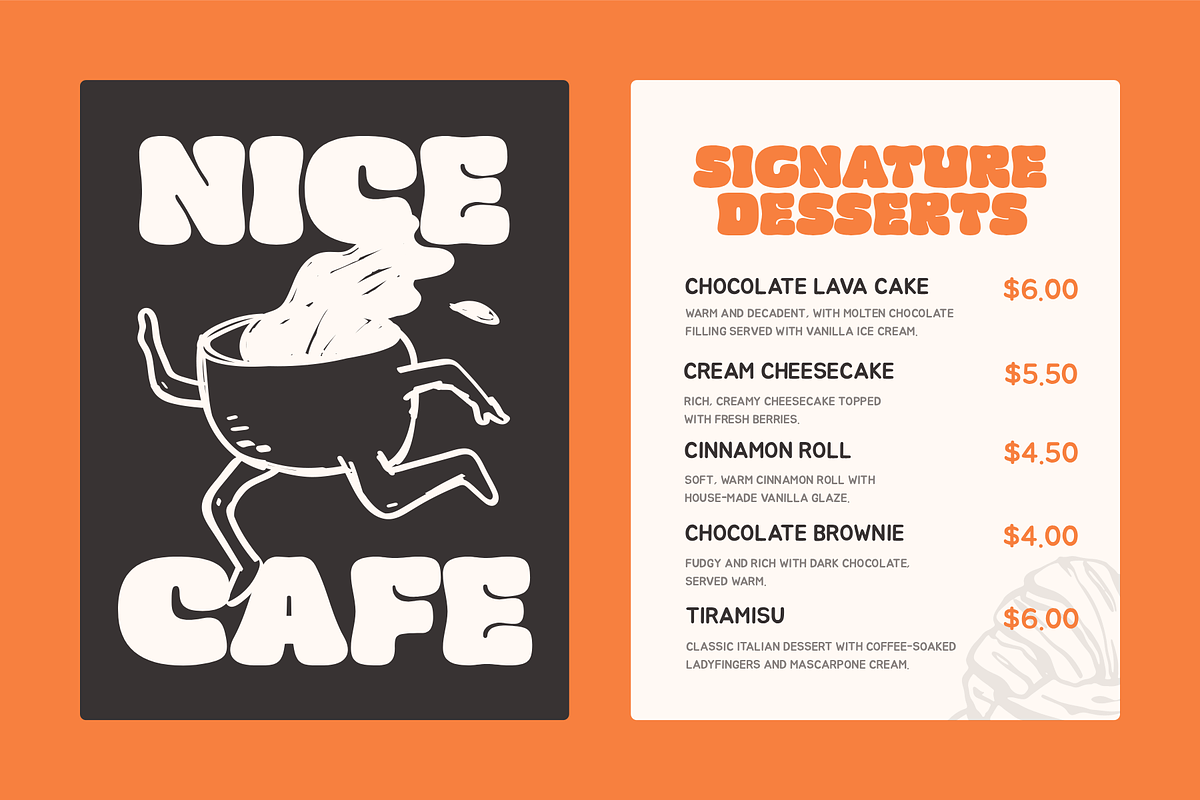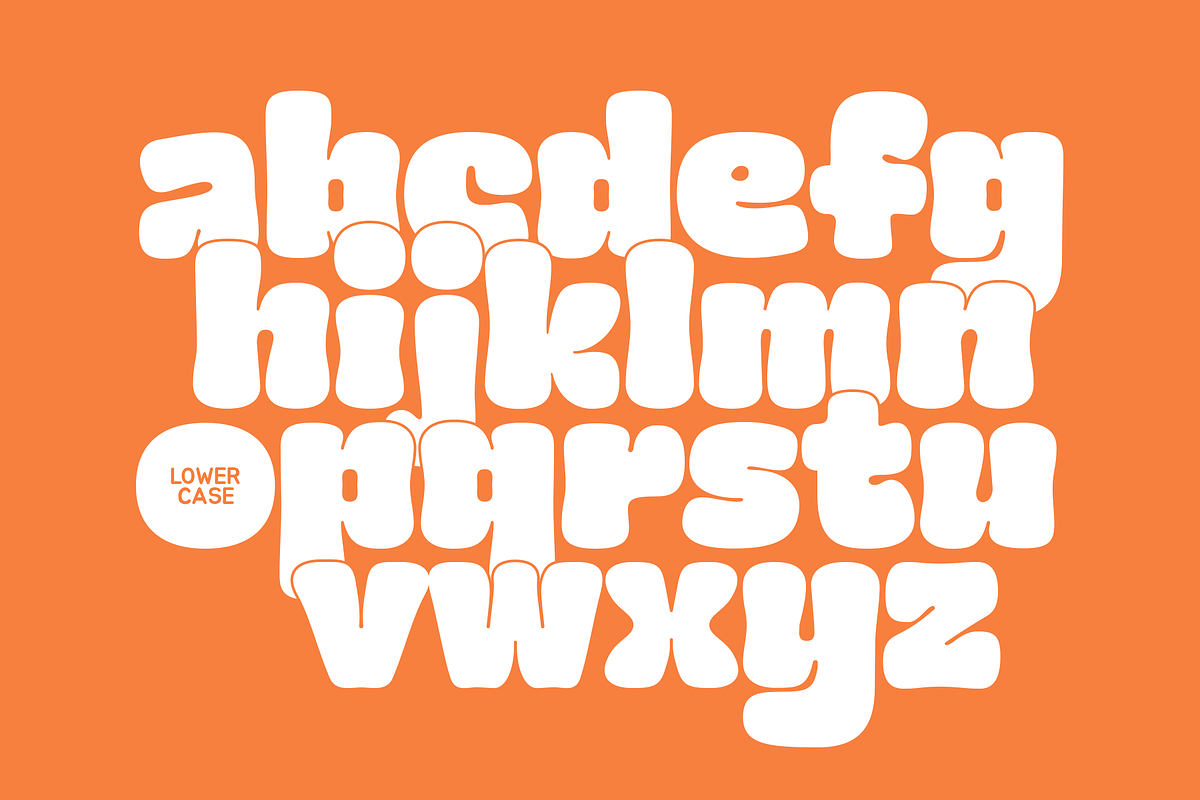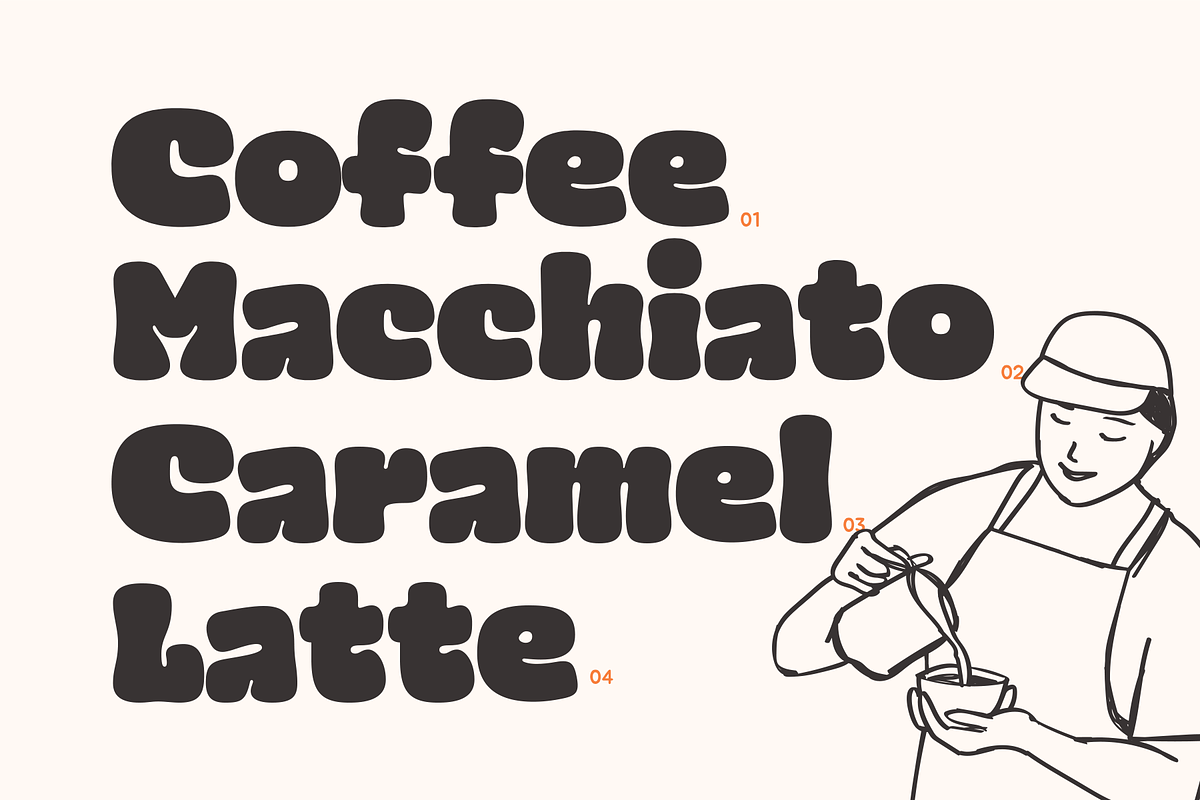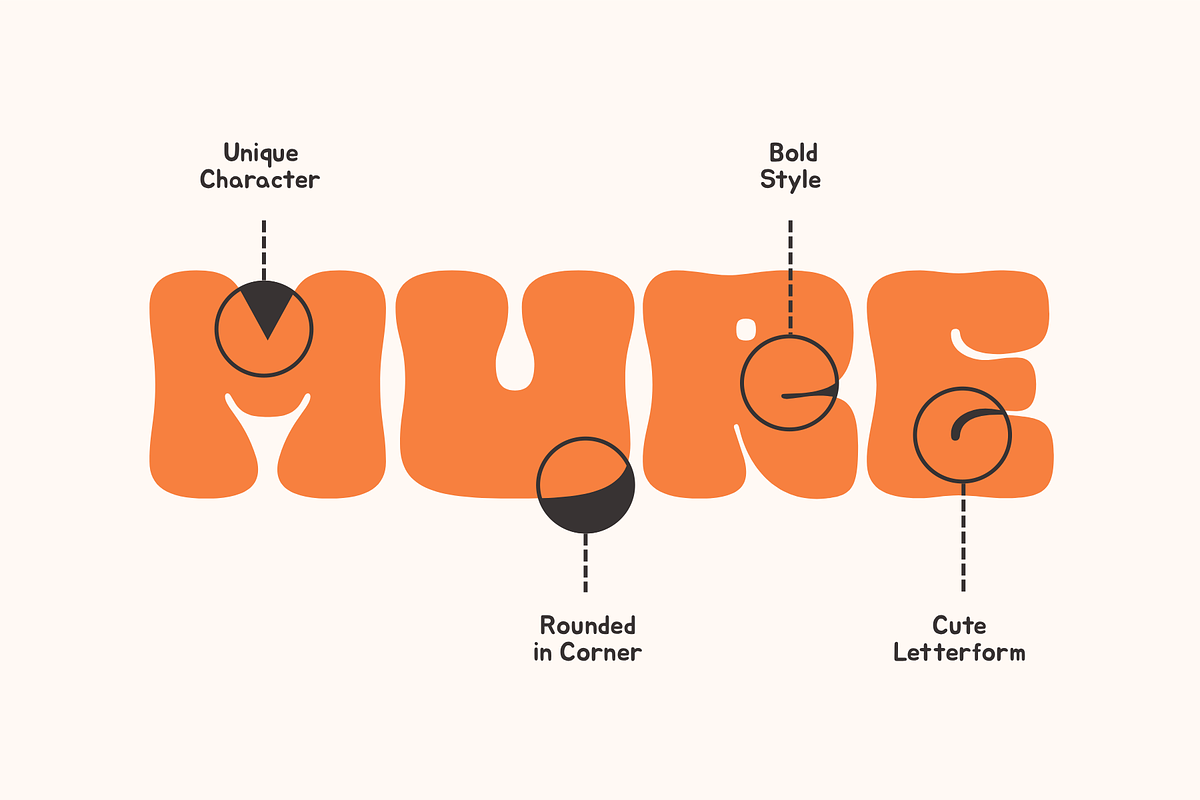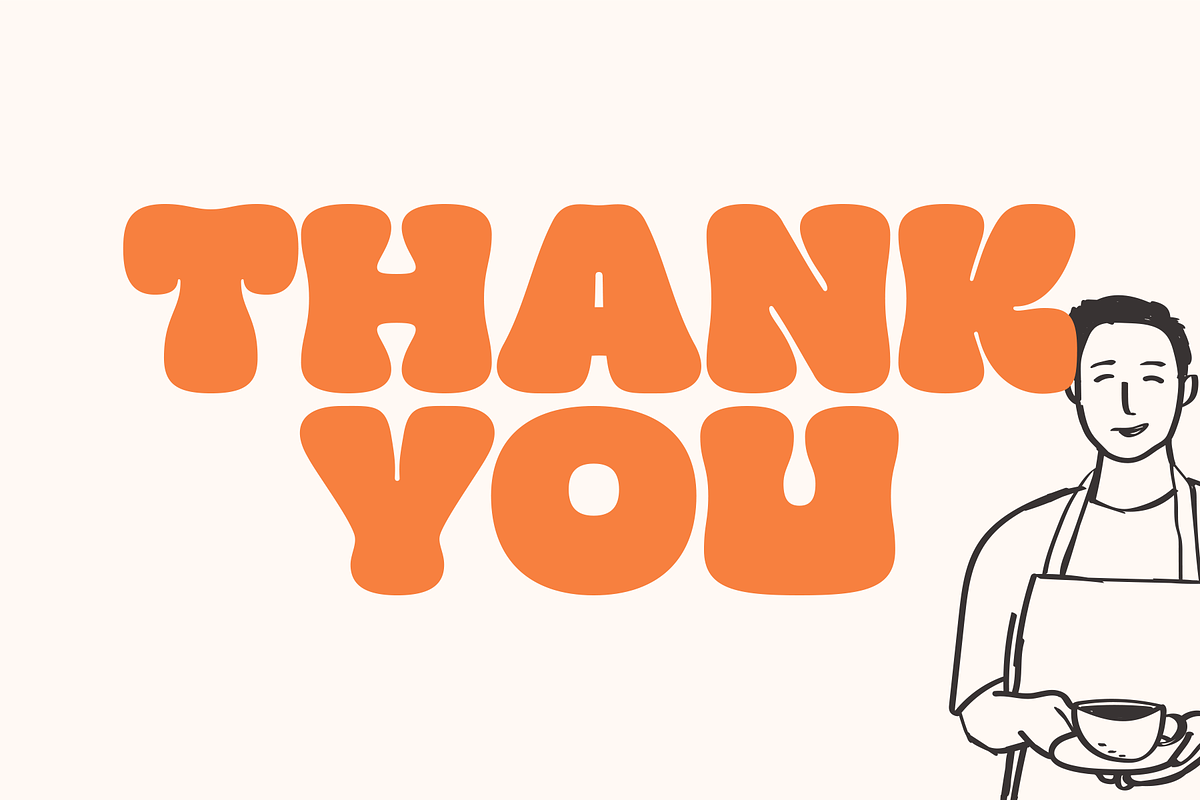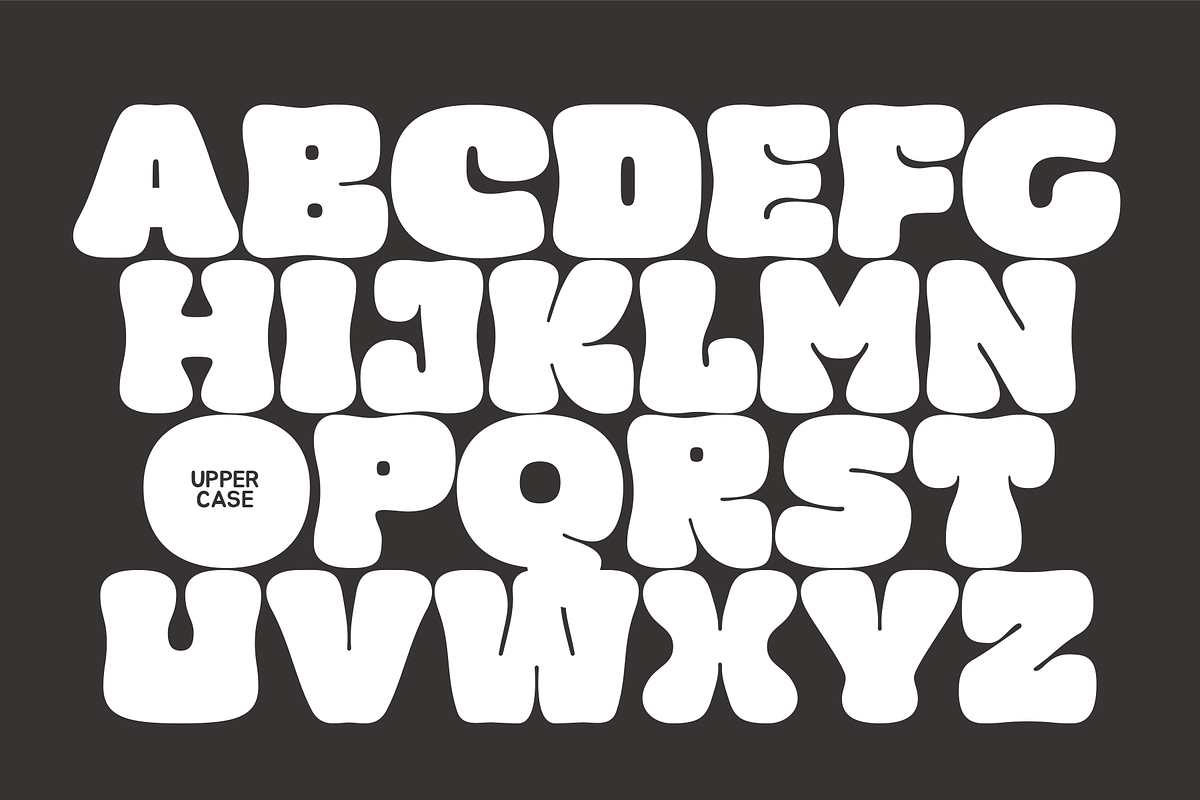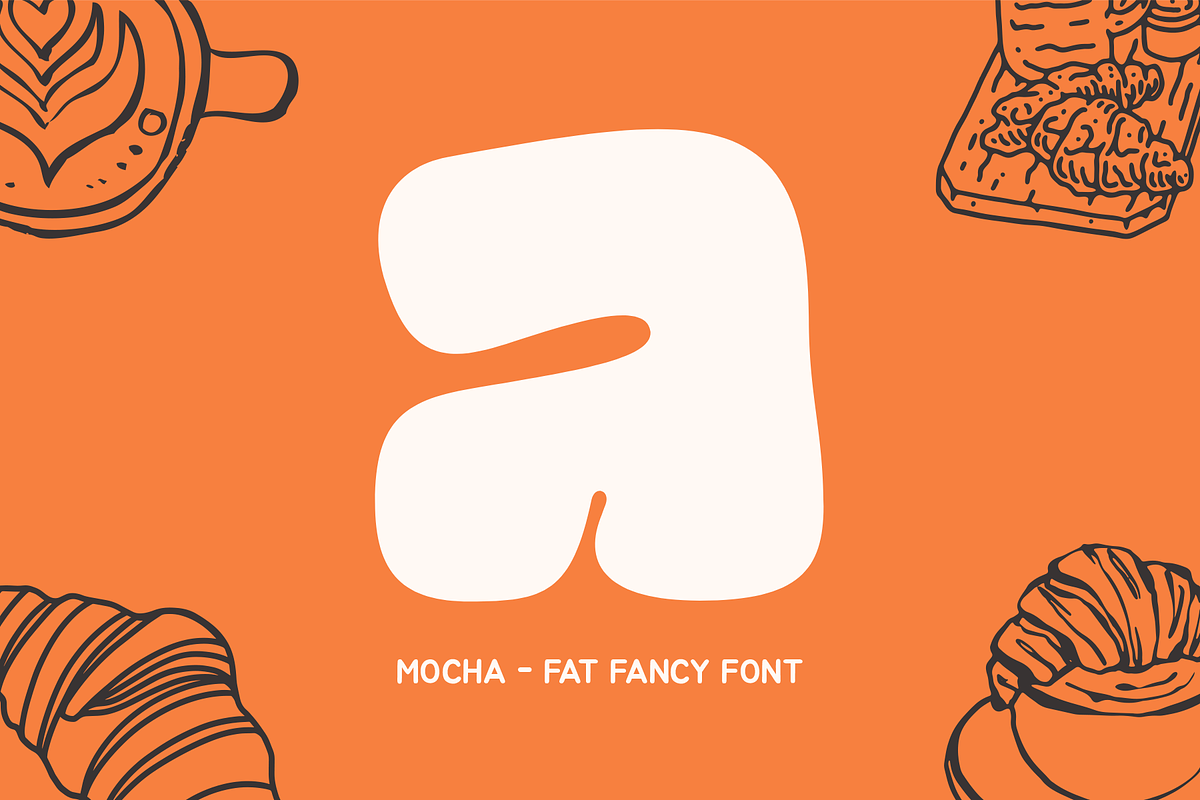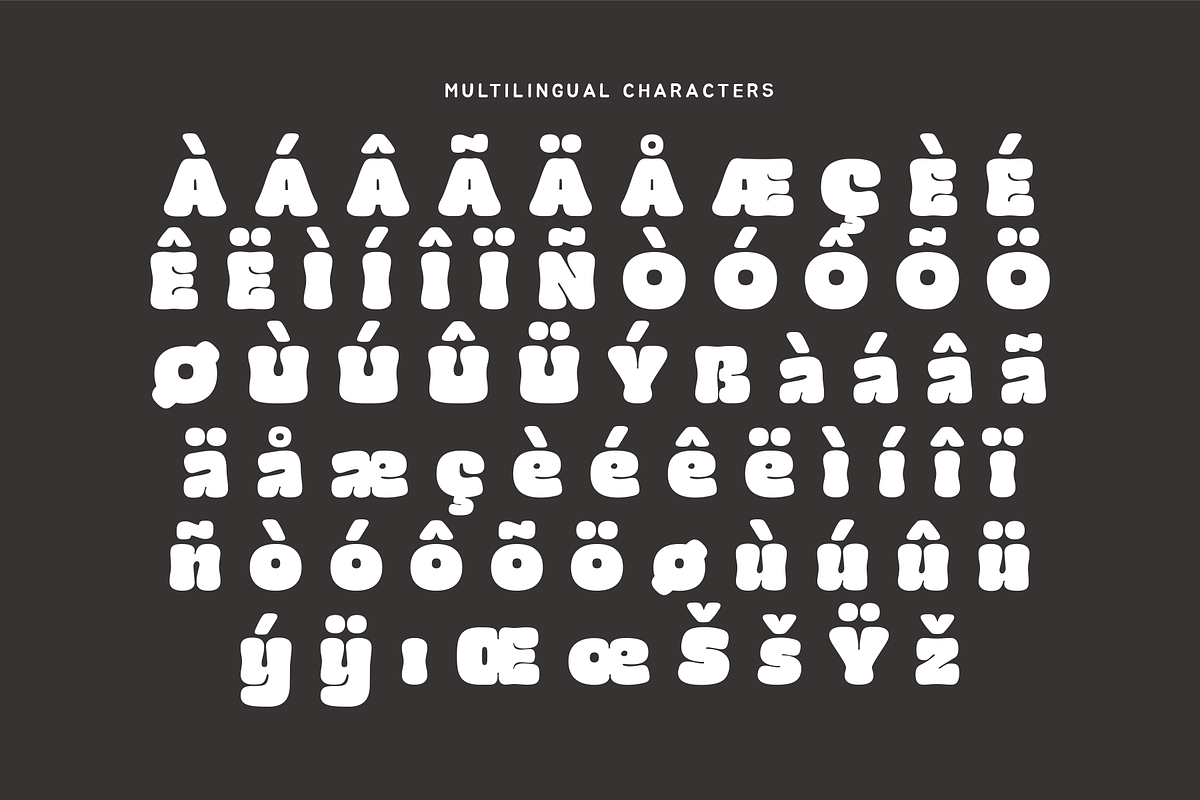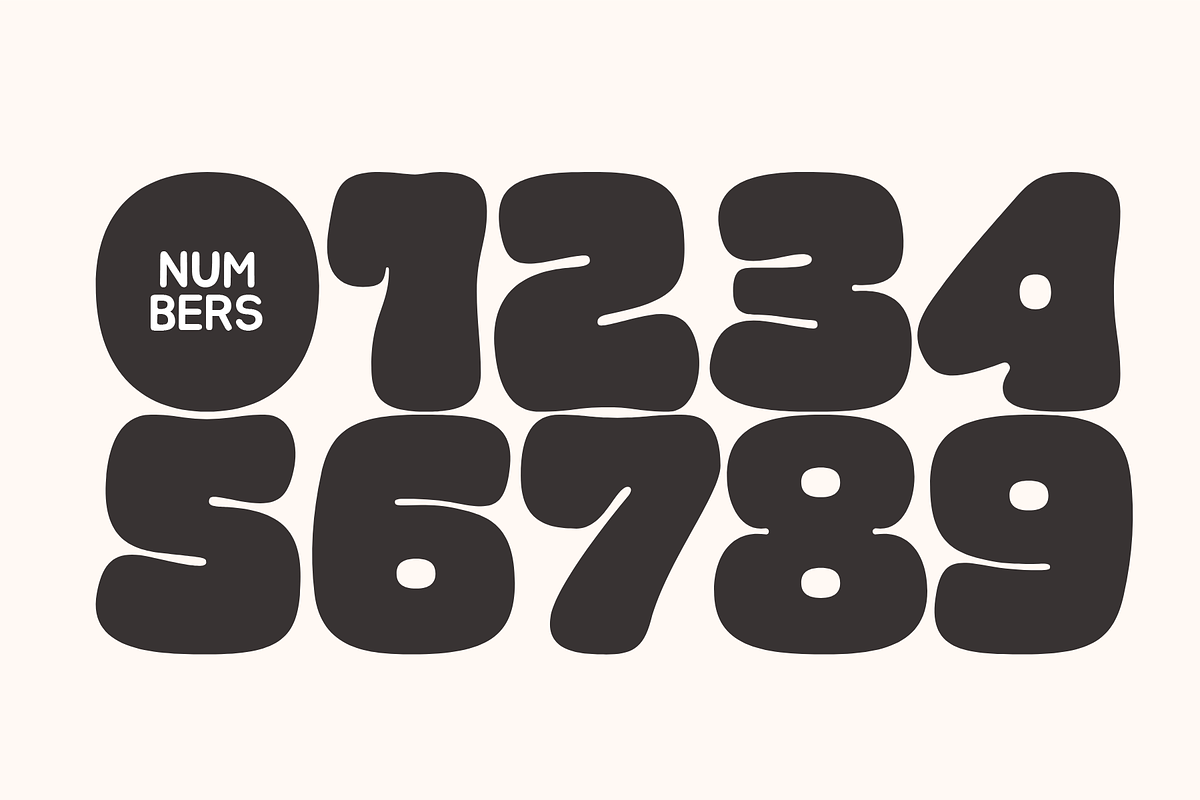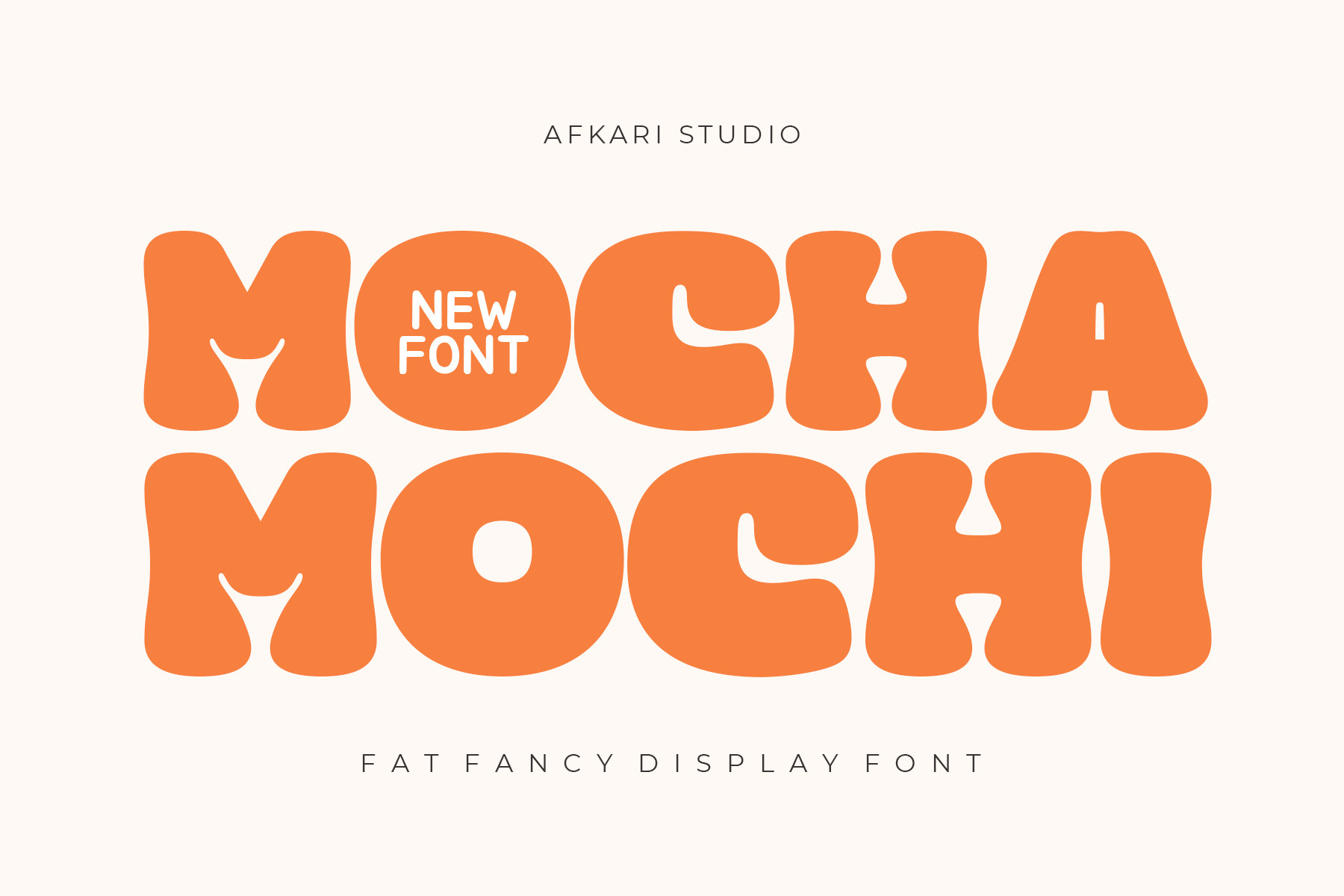
Mocha Mochi - Fat Fancy Display Font
Mocha Mochi is a fat fancy display font with bold, rounded, and playful letterforms—perfect for designers who want to add a sweet and eye-catching touch to their projects. Inspired by the softness of mochi and the cozy feel of mocha, this font delivers a fun, friendly, and modern aesthetic ideal for both digital and print designs.
Mocha Mochi stands out with its unique fat rounded look, making it a great choice for designers who need a font that captures attention instantly. Its charming personality makes it perfect for brands that want to appear youthful, cheerful, and memorable.
- Uppercase, Lowercase, Number, and Punctuation
- Special Alternates and ligatures
- Mültîlíñgúãl Sùppört for; ä ö ü Ä Ö Ü ß ¿ ¡
Mocha Mochi offers a distinctive voice—playful yet confident—making it an excellent font for brands and creators who want to stand out with a bold yet friendly typeface.